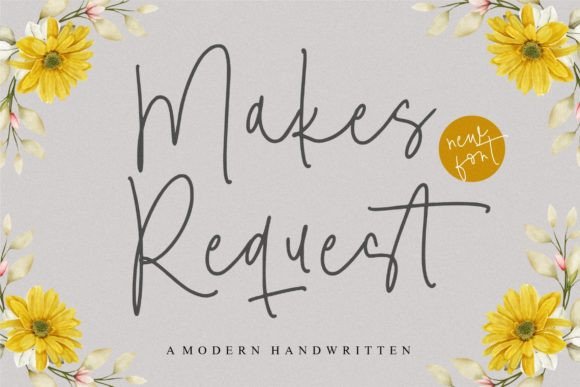
Discover Makes Request, the monoline handwritten font that embodies elegance and sophistication, crafted with meticulous care by Balpirick. This script font is a visual masterpiece, designed to elevate your creative projects with its clean lines and captivating charm.
Makes Request is not just a font; it's a journey into the realm of artistic expression. Its elegant strokes and purposeful curves dance across the page, evoking a sense of grace and refinement. Whether you're a designer seeking to create captivating logos, a branding expert crafting distinctive identities, or a creative entrepreneur seeking to make a statement, Makes Request is your perfect companion.
With Makes Request, your words will come alive, commanding attention and leaving a lasting impression. Its versatility knows no bounds, adapting seamlessly to a myriad of design projects. From invitations that exude timeless charm to packaging that captivates customers, Makes Request transforms the ordinary into the extraordinary.
Immerse yourself in the world of Makes Request and unleash your creativity. Let your imagination soar as you craft designs that resonate with your audience, leaving them spellbound by your artistic prowess. Makes Request is more than just a font; it's an experience, an invitation to embark on a journey of self-expression and artistic fulfillment.